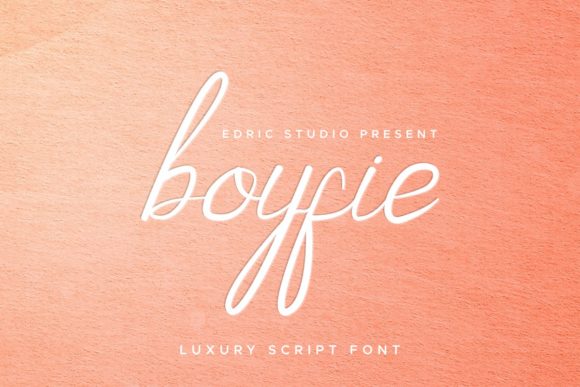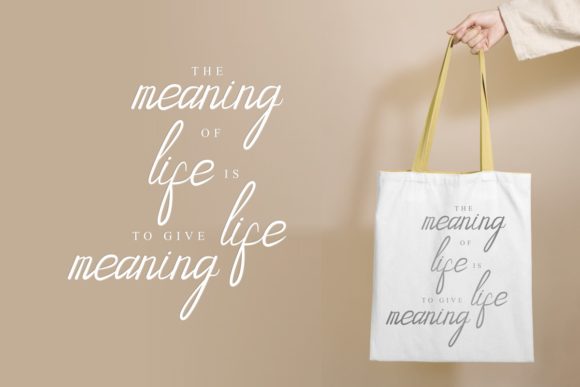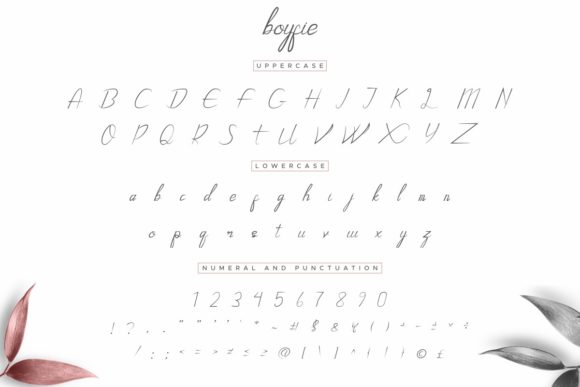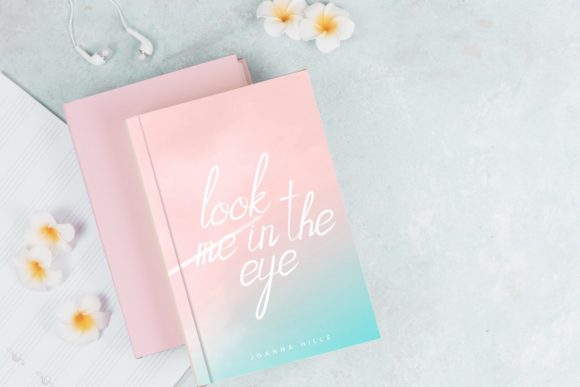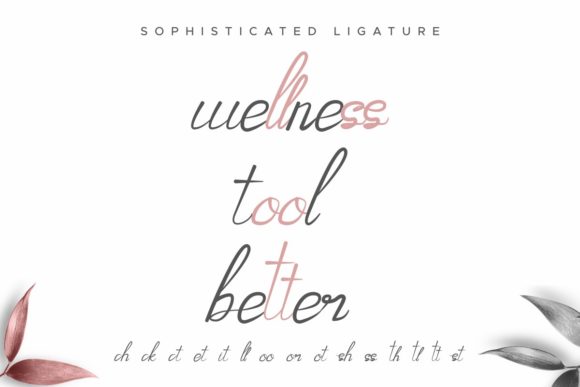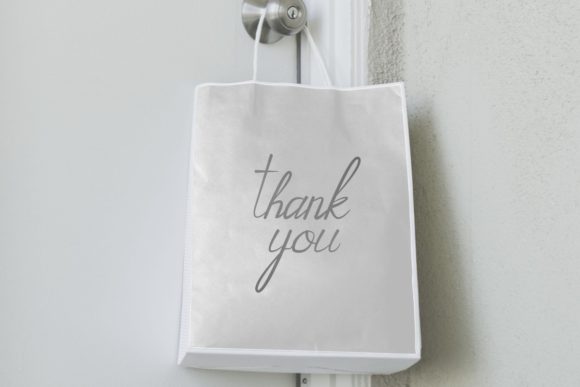
Boyfie Font
About Boyfie Font
Boyfie results out of a stunning pairing of a brush pen and pencil that makes it look incredibly endearing and authentic. Use this gorgeous and unique script font to bring any DIY project to life!